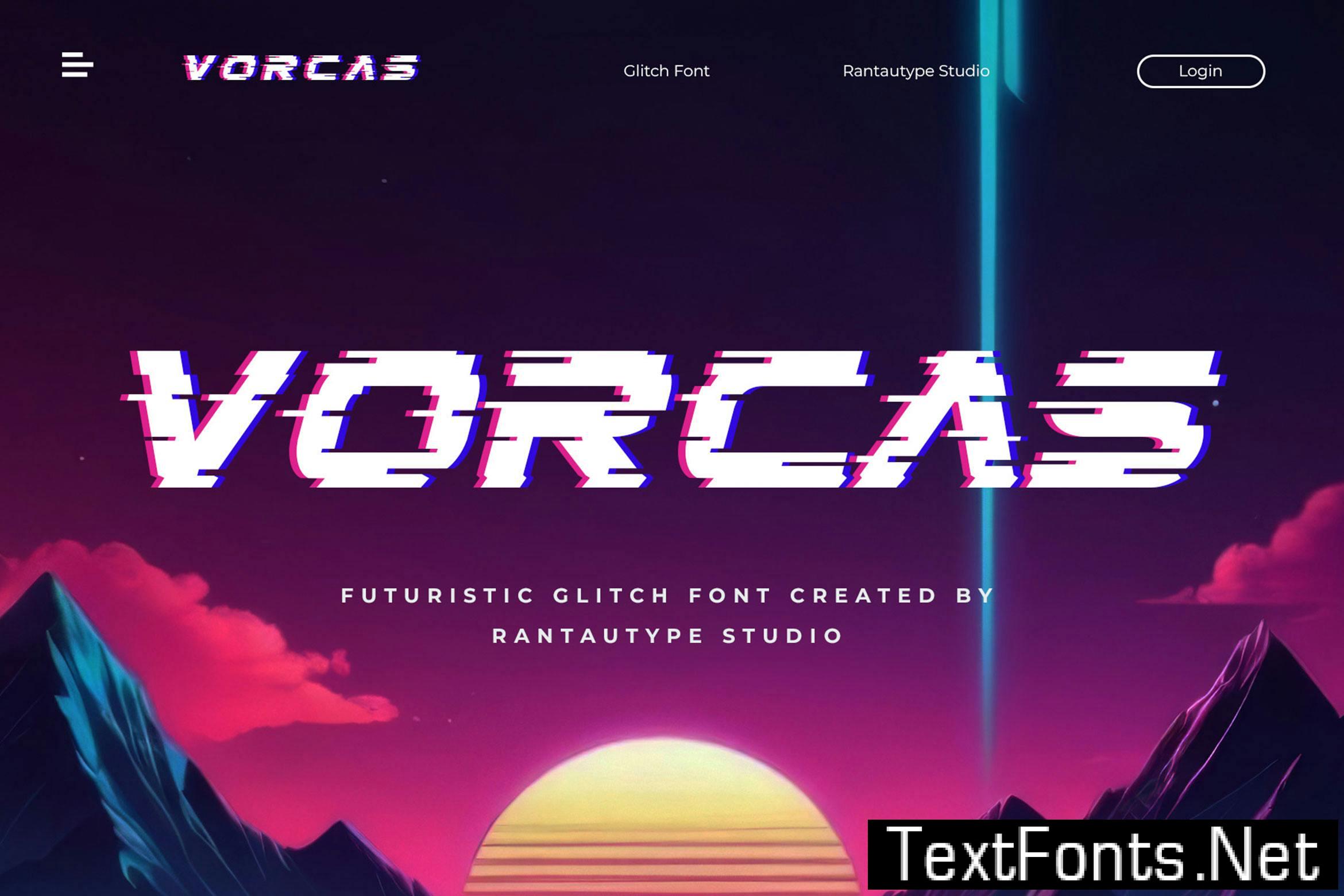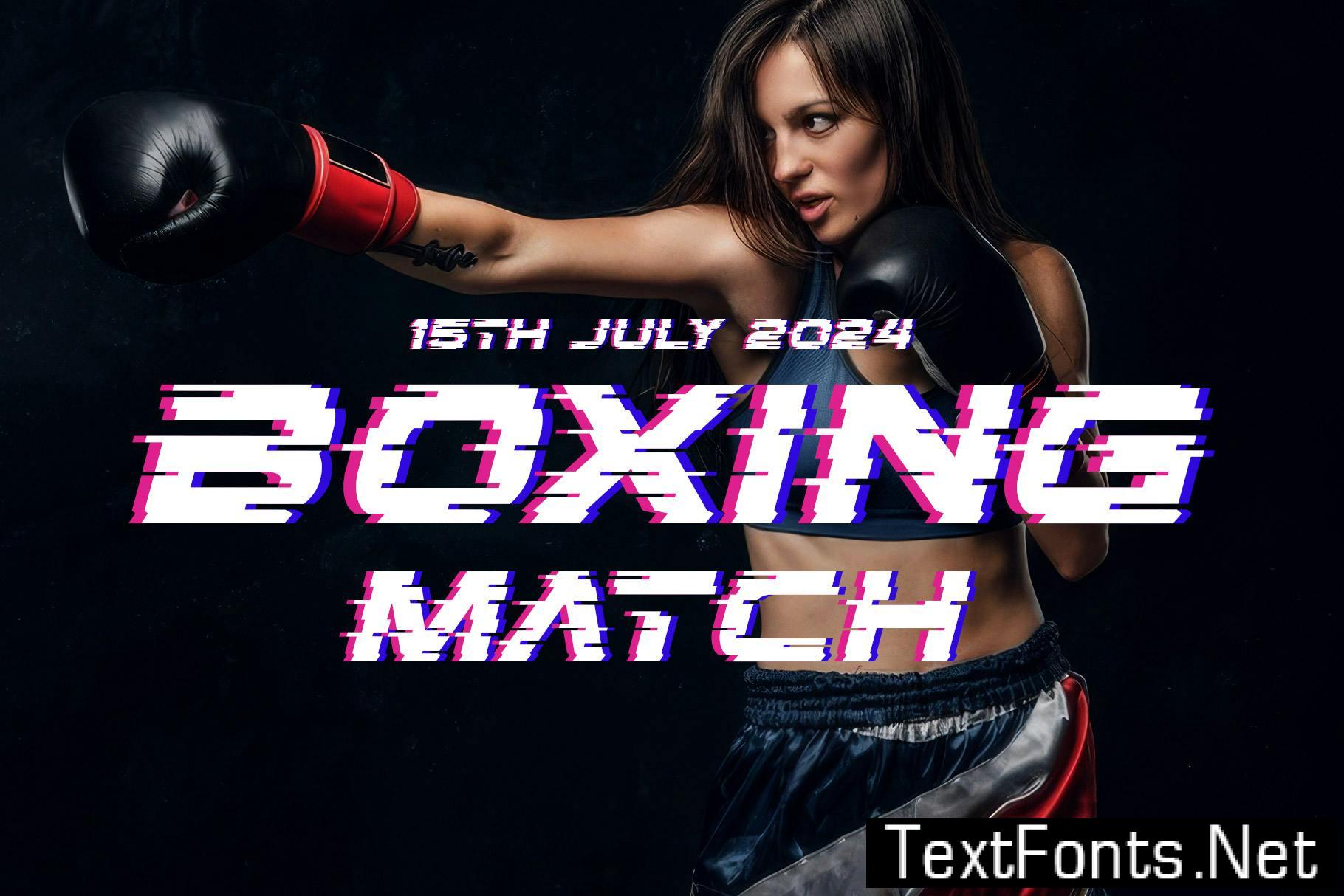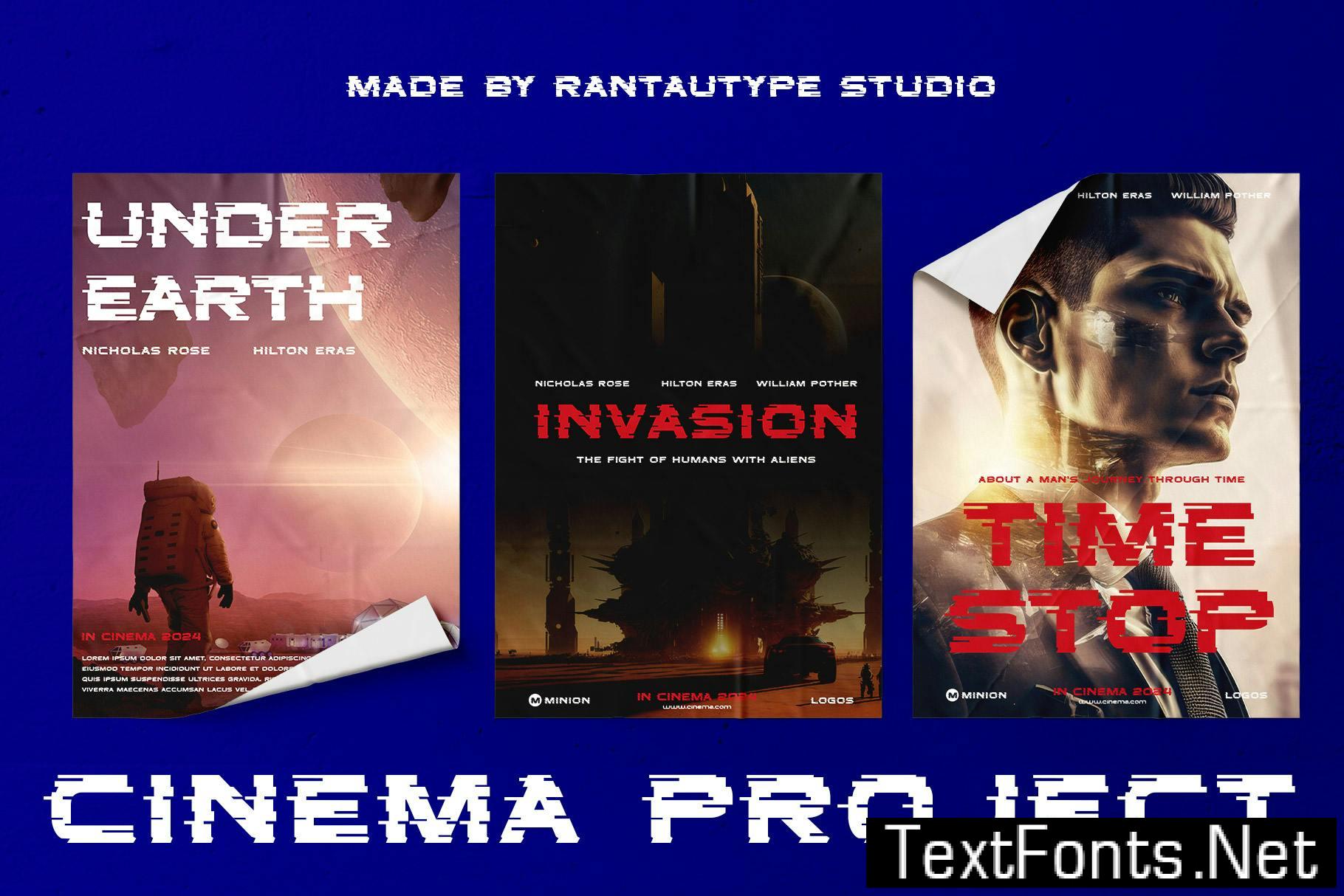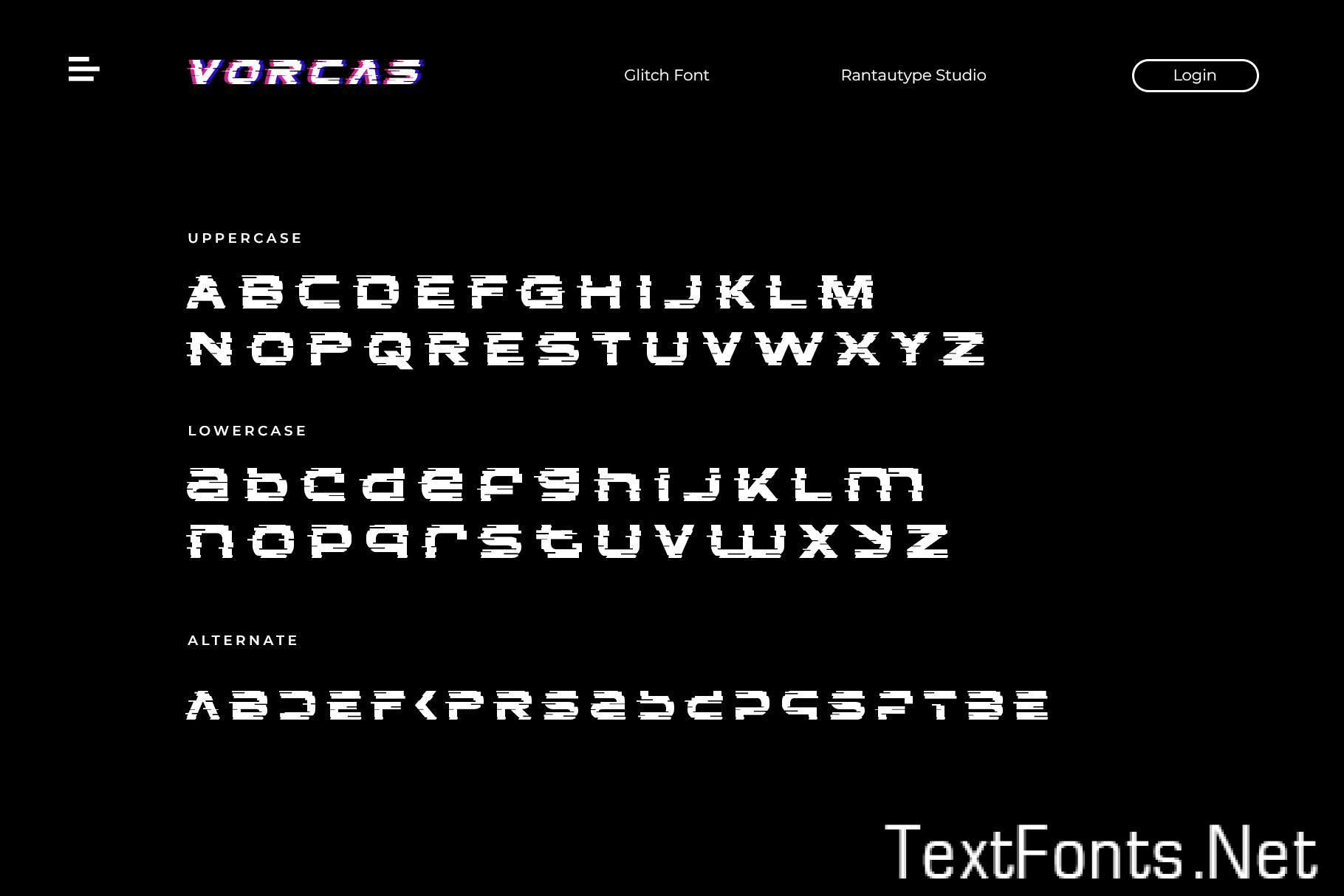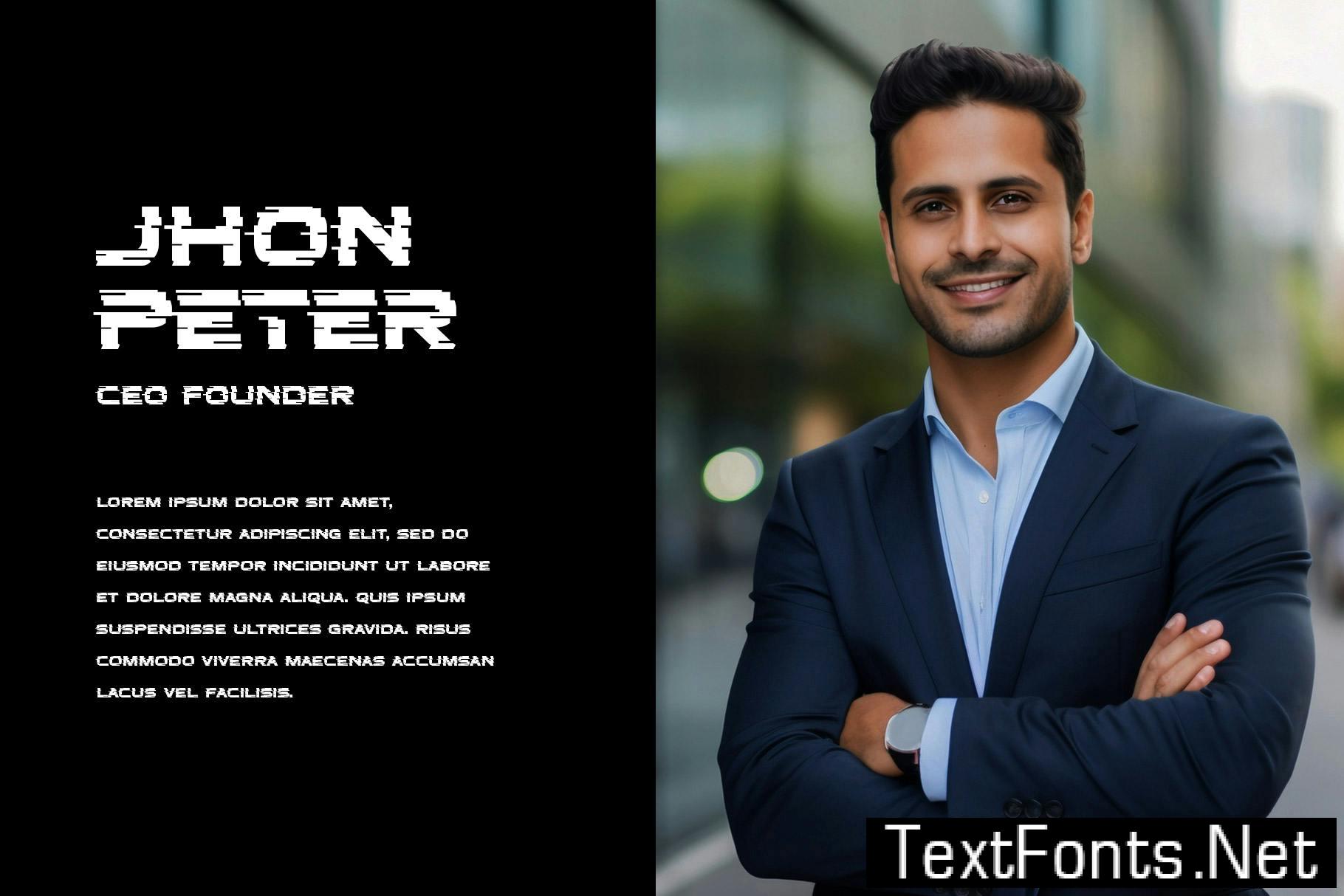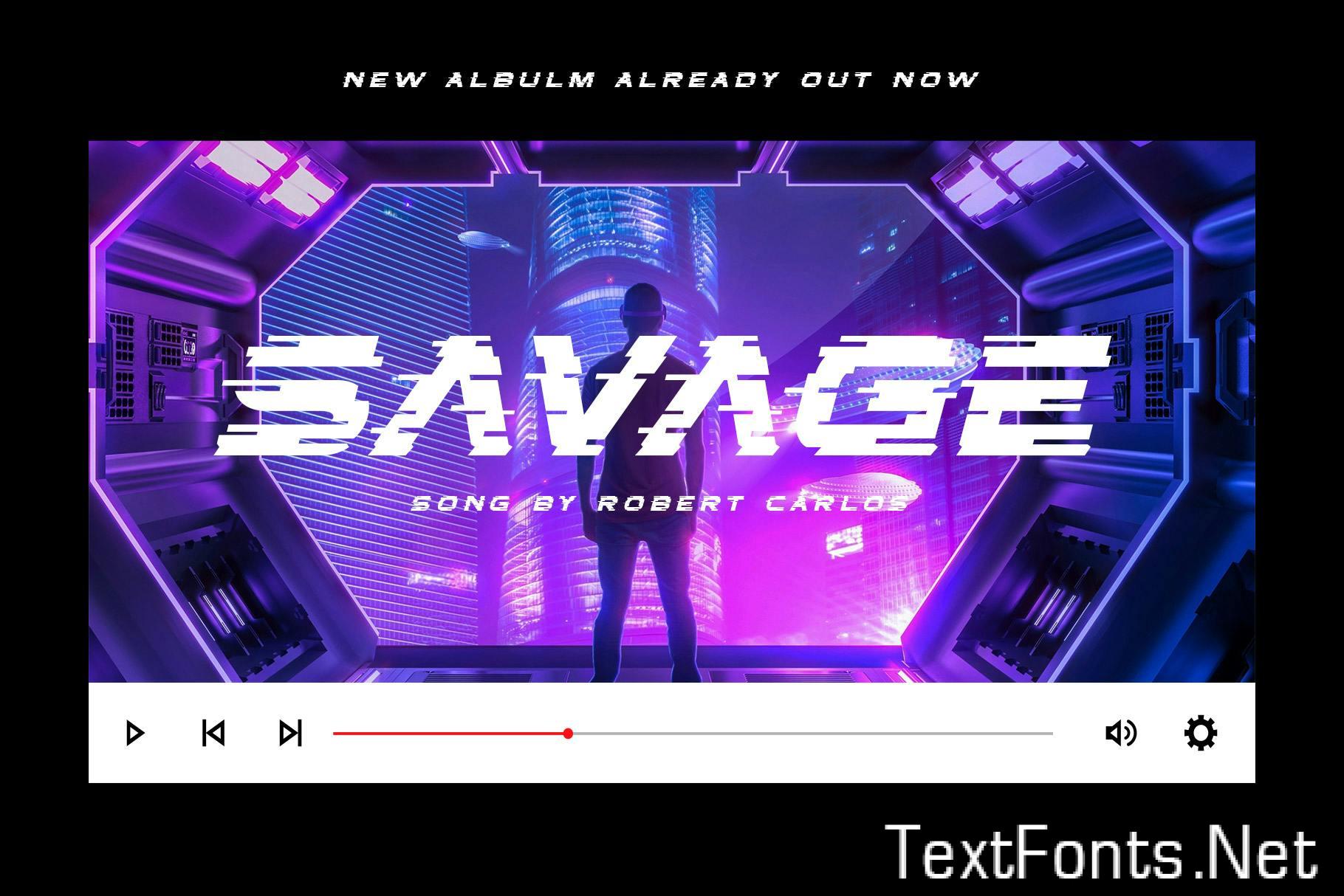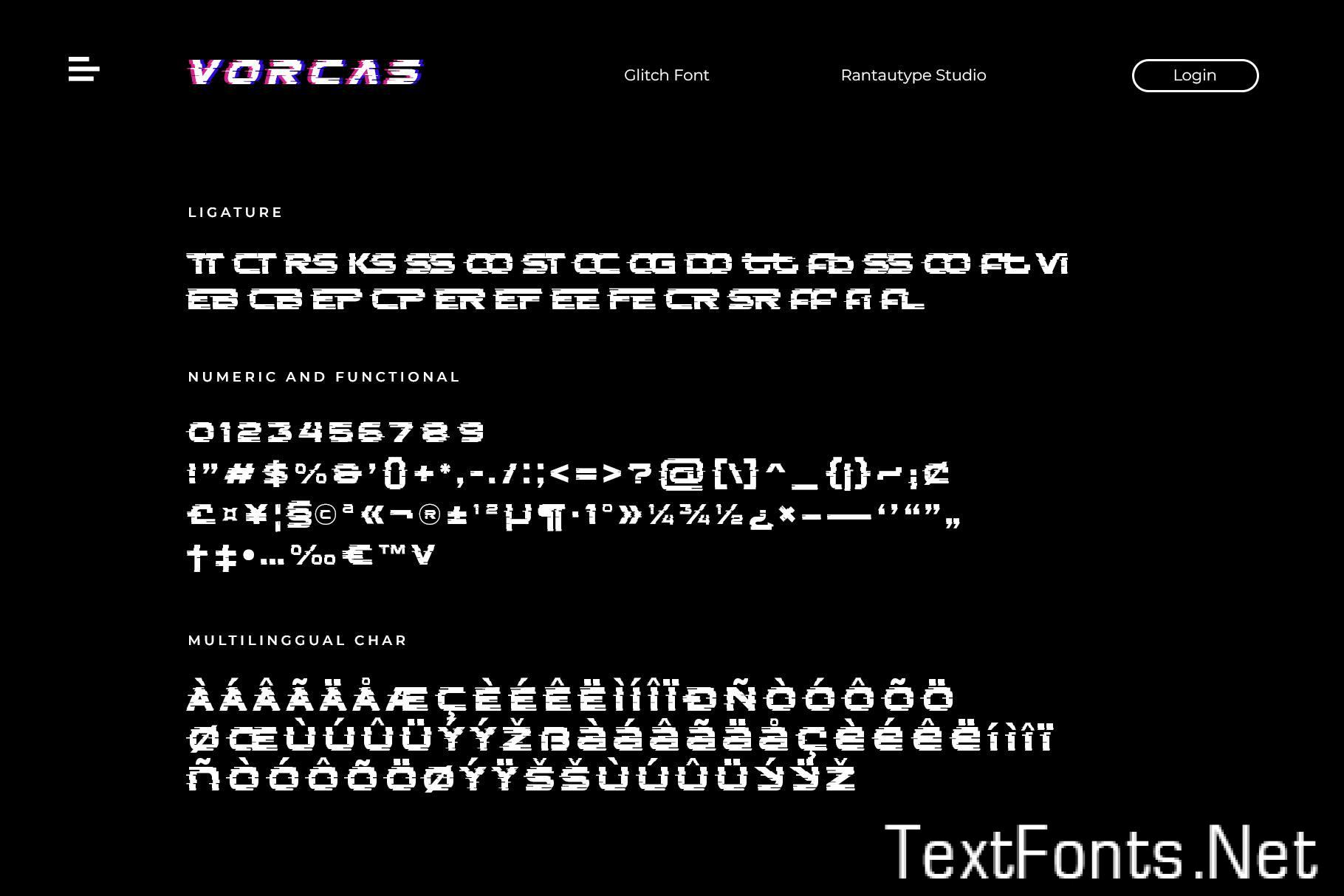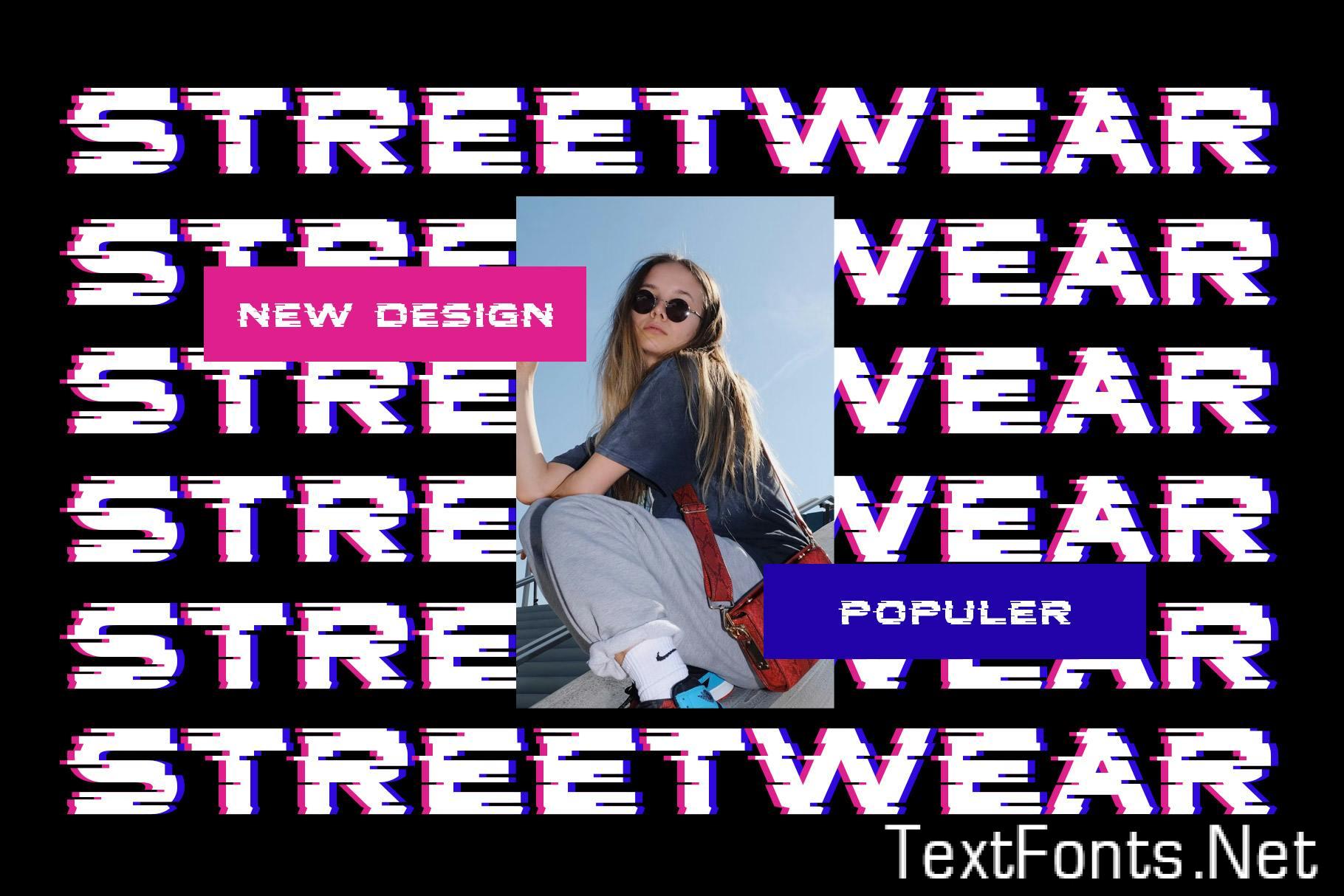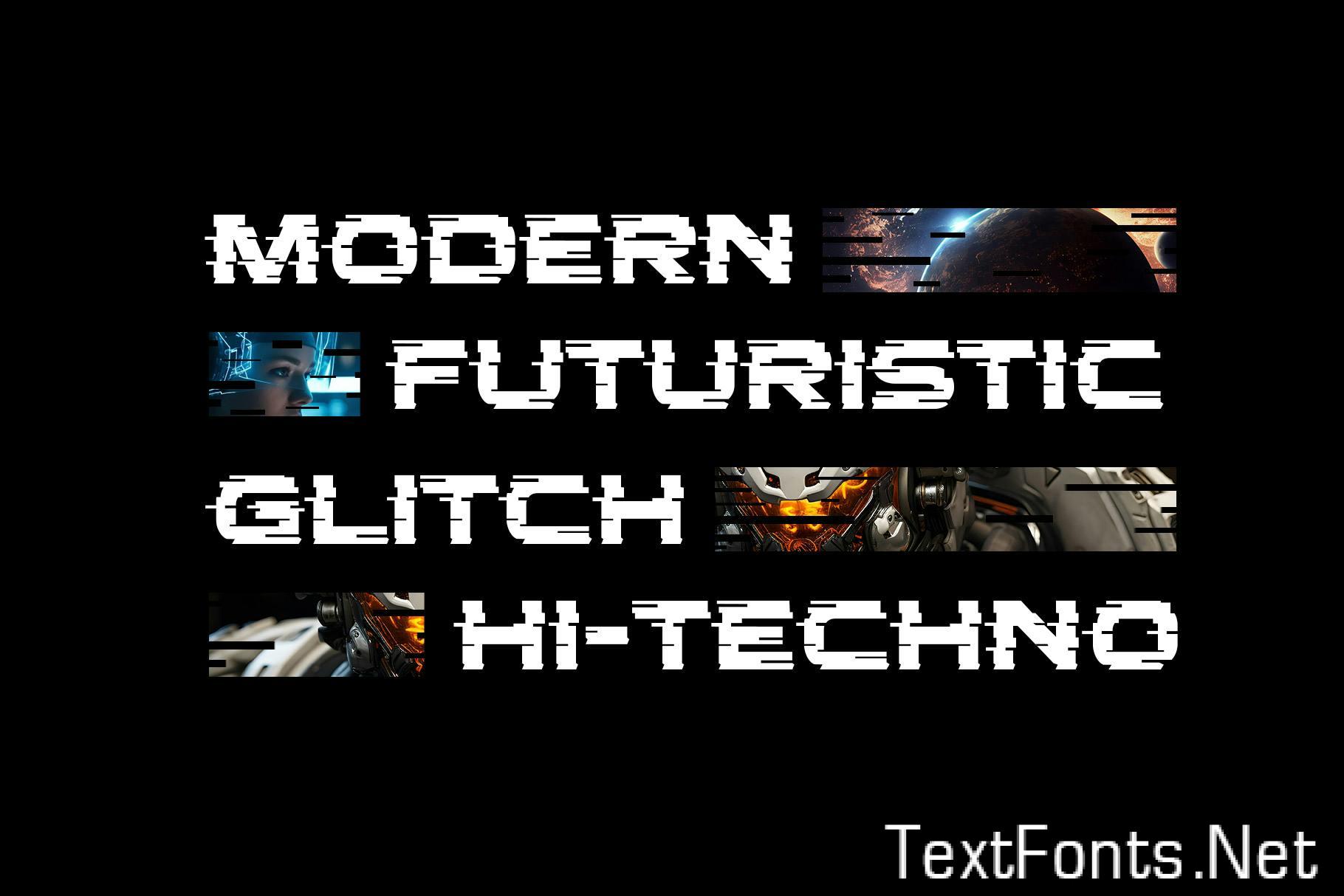
Vorcas is experimental font that gives the appearance of digital glitching effect inspire from image error system. We keep this font look modern and futuristic shape.
Vorcas is a perfectly choice for any creative endeavor, chic, lifestyle design such as logos, advertisements, stationery, branding project, display and magazine, corporate brand, product design, label, business project and many other project with futuristic or sporty touch.
Fonts include **Multilingual Character** for: Afrikaans, Albanian, Asu, Basque, Bemba, Bena, Breton, Chiga, Cornish, Dutch, English, Estonian, Filipino, Finnish, Friulian, Galician, Gusii, Indonesian, Irish, Italian, Kabuverdianu, Kalenjin, Kinyarwanda, Luo, Luxembourgish, Luyia, Machame, Makhuwa-Meetto, Makonde, Malagasy, Manx, Morisyen, North, Ndebele, Nyankole, Oromo, Portuguese, Quechua, Romansh, Rombo, Rundi, Rwa, Samburu, Sango, Sangu, Scottish, Gaelic, Sena, Shambala, Shona, Soga, Somali, Spanish, Swahili, Swedish, Swiss, German.